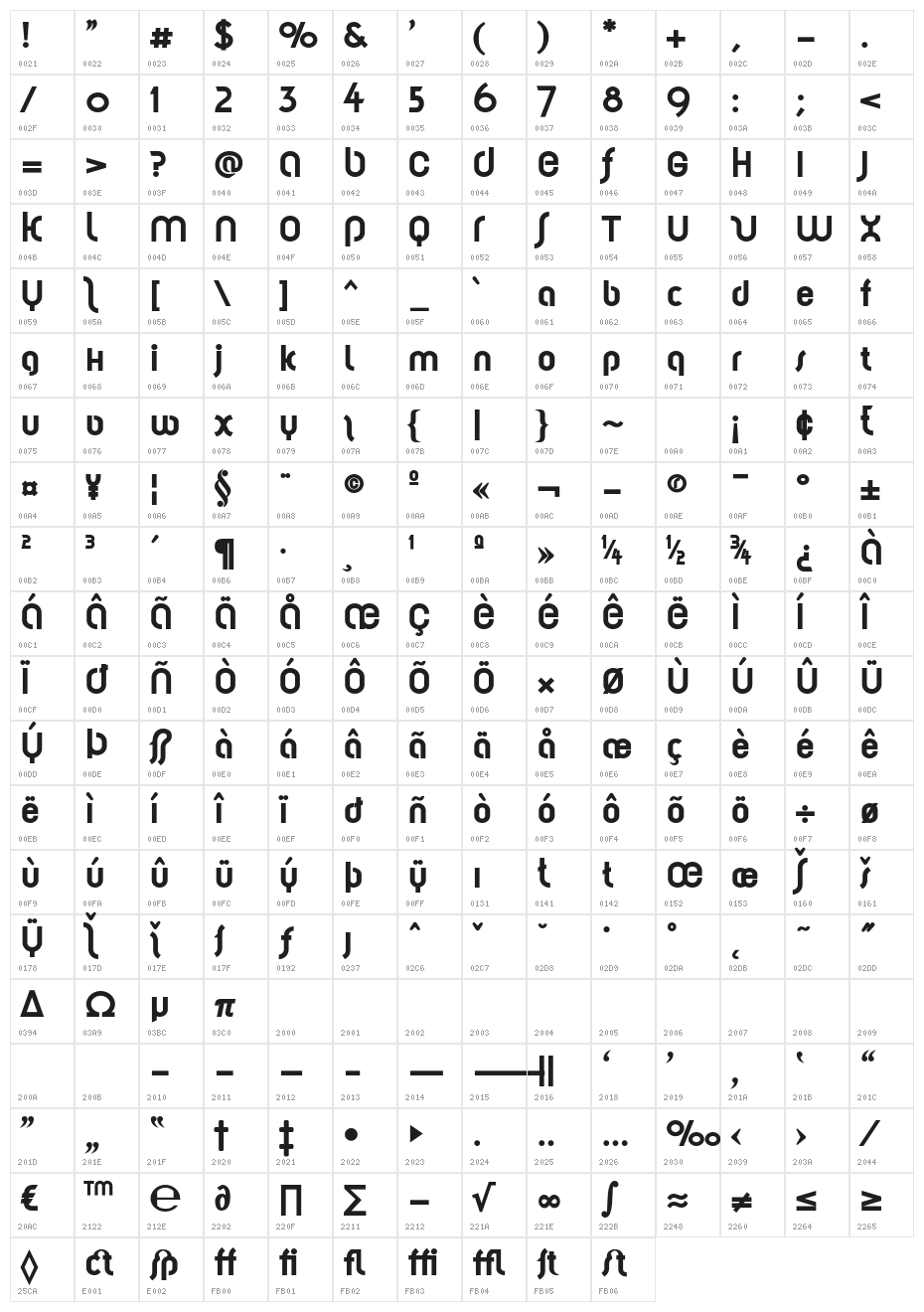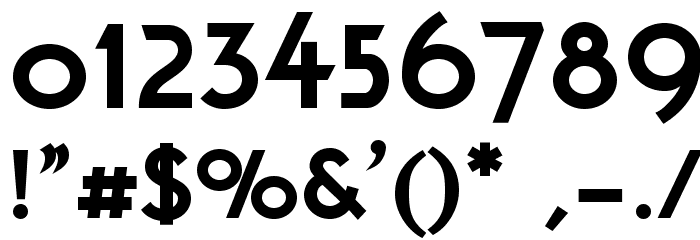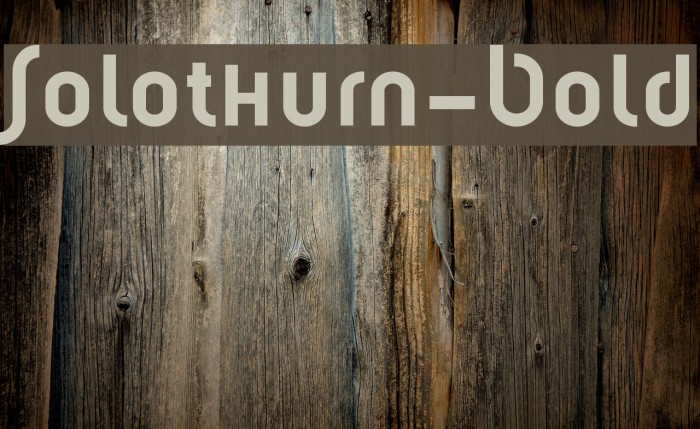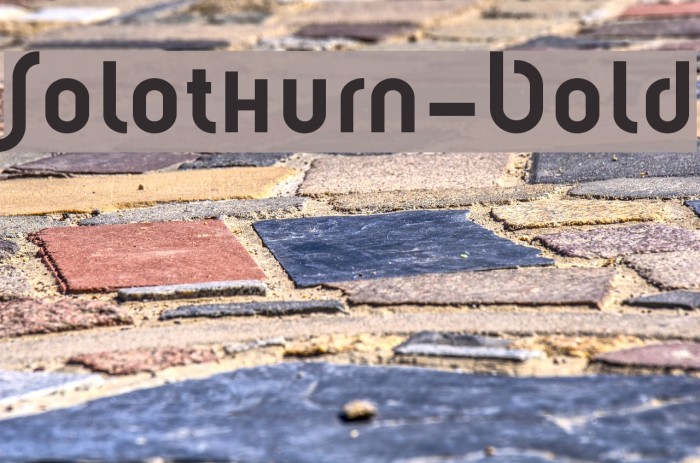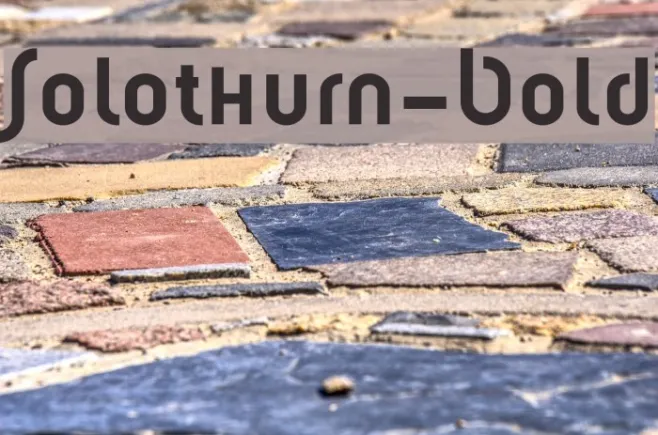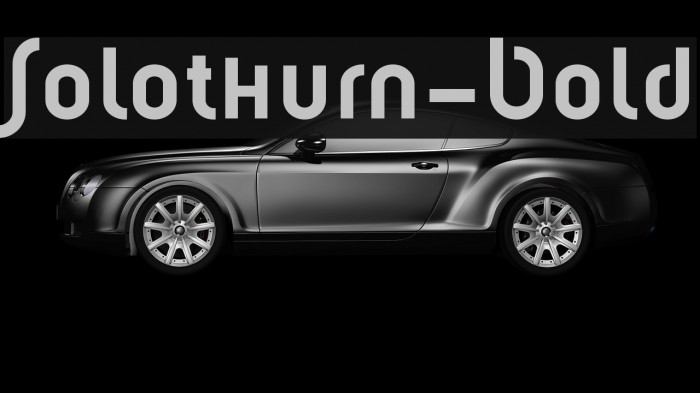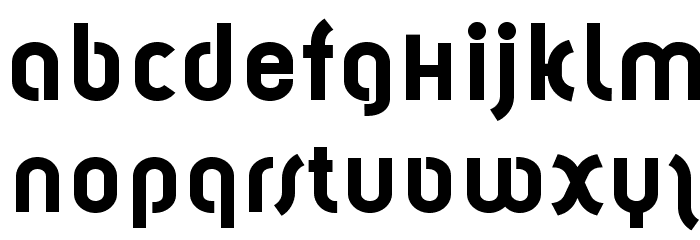
Solothurn-Bold Font
Solothurn-Bold Description
This font features a bold and geometric style with a modern twist. The characters are constructed with clean lines and a uniform thickness, giving it a strong and assertive presence. The rounded edges and consistent stroke width contribute to its contemporary feel, while the unique shapes of certain letters, such as the 'G' and 'Q', add a distinctive character. The numbers are equally bold, maintaining the geometric theme with a slight curvature that softens the overall look. Special characters are designed to match the boldness and geometric style, ensuring a cohesive appearance across all glyphs.